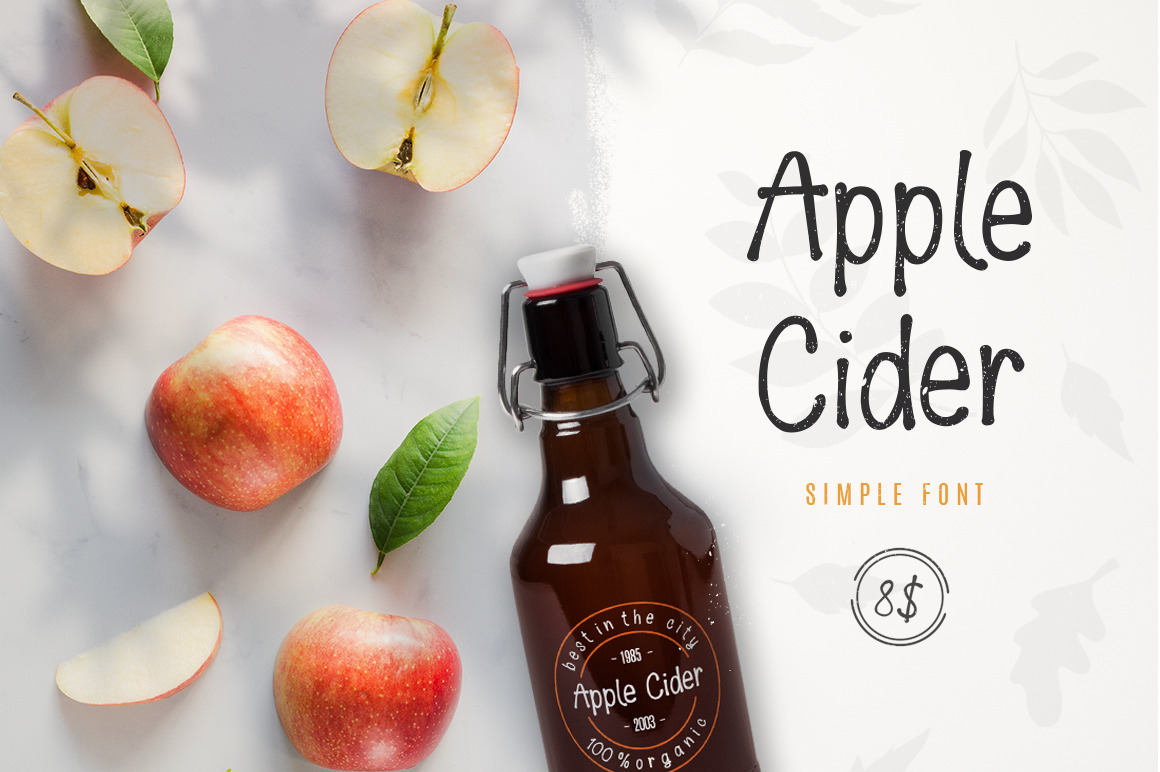
Introducing Apple Cider font!
This Sans serif font great on branding identity cards and products, business cards, logos, posters.
All elements are 100 % draw with love.